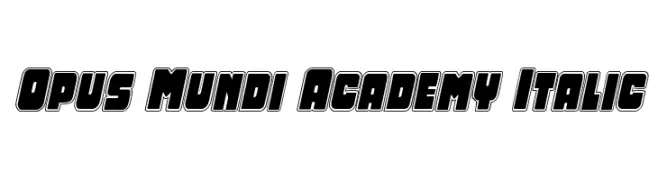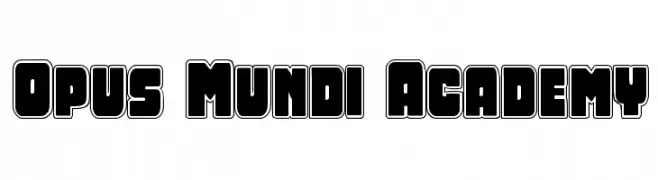
A bold, 3D geometric font with thick outlines and a uniform blocky style.
A bold, 3D italic font with outlined characters and a modern style.
A bold, outlined font with a strong, geometric design.
A bold, outlined font with a dynamic, italicized style.
A bold, condensed font with rounded edges for a strong, modern look.
A bold, condensed italic font with a modern and dynamic style.
A bold, blocky font with rounded edges and expanded width for strong visual impact.
A bold, expanded, and italic font with a modern and dynamic style.
A bold, decorative font with a gradient effect created by horizontal lines.
A bold, italicized font with a gradient effect and dynamic, modern style.